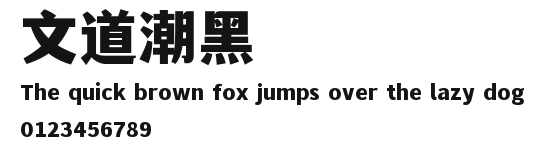
文道潮黑 Preview
• Font Name: 文道潮黑
• Full Font Name: 文道潮黑
• Designer: WDZK
• Manufacturer: 深圳文道信息科技有限公司
About 文道潮黑.ttf
文道潮黑.ttf is a modern, elegant sans-serif font designed for ultimate readability and visual harmony. Perfect for branding, headlines, web design, and print materials.